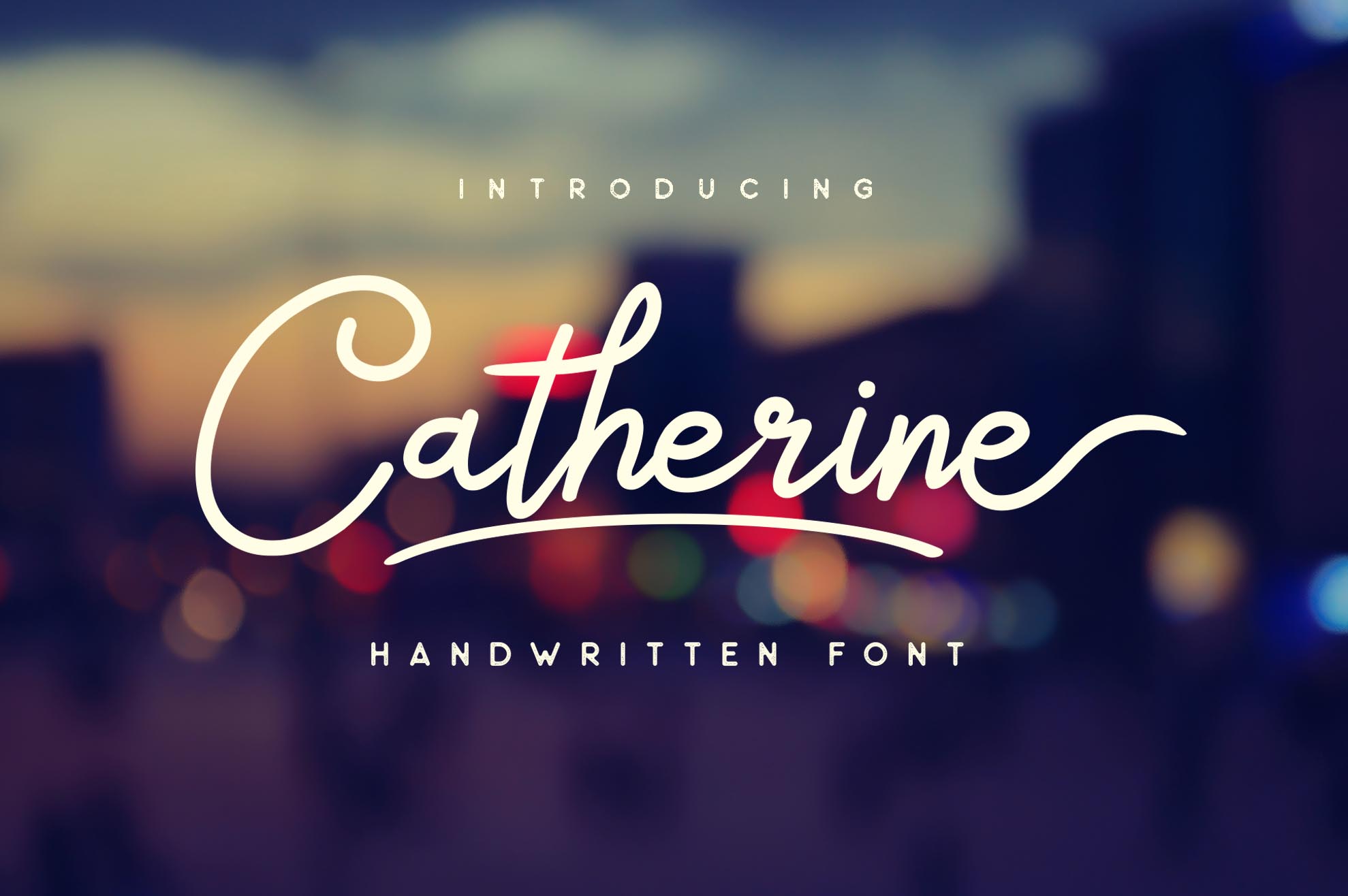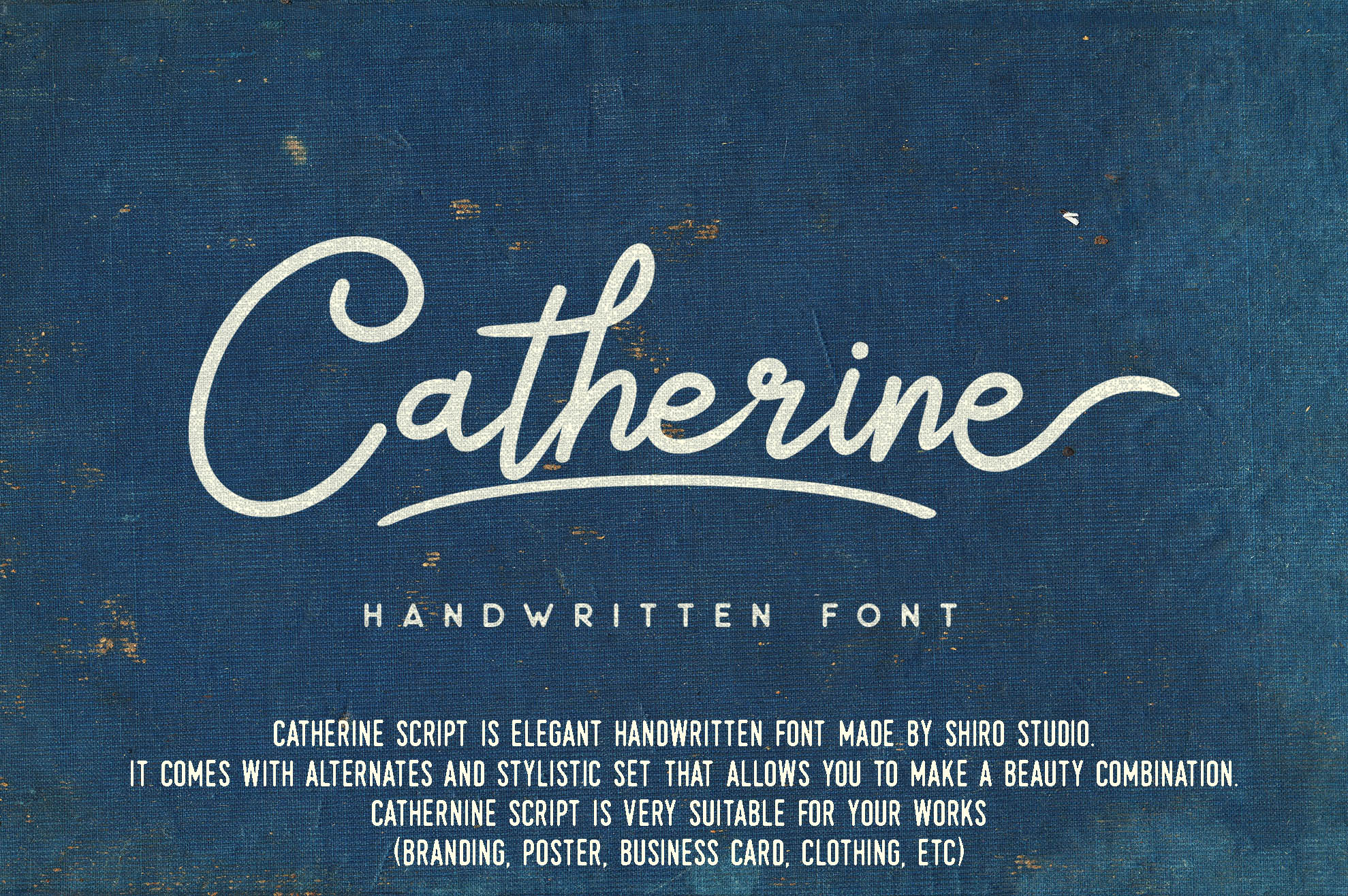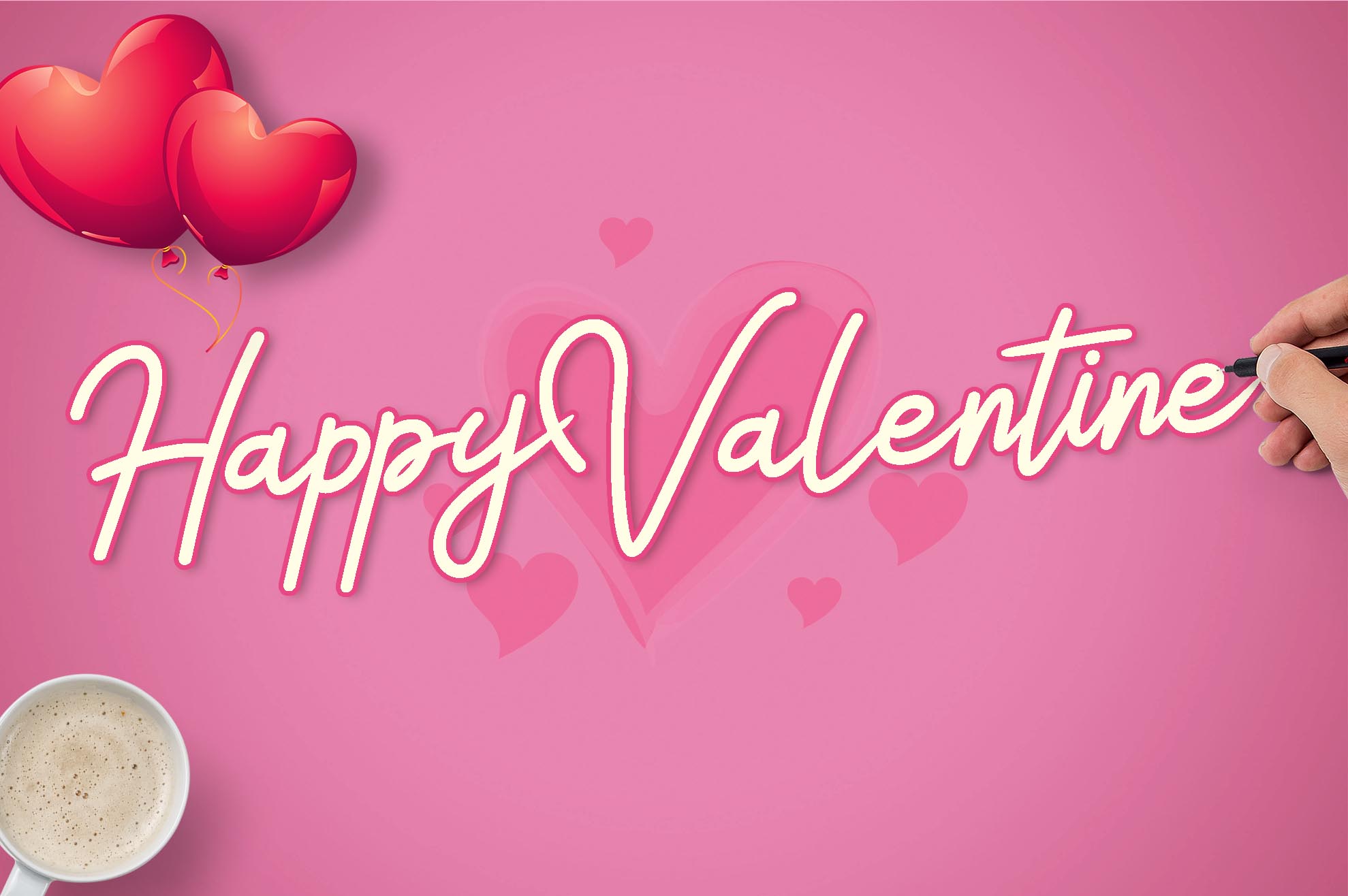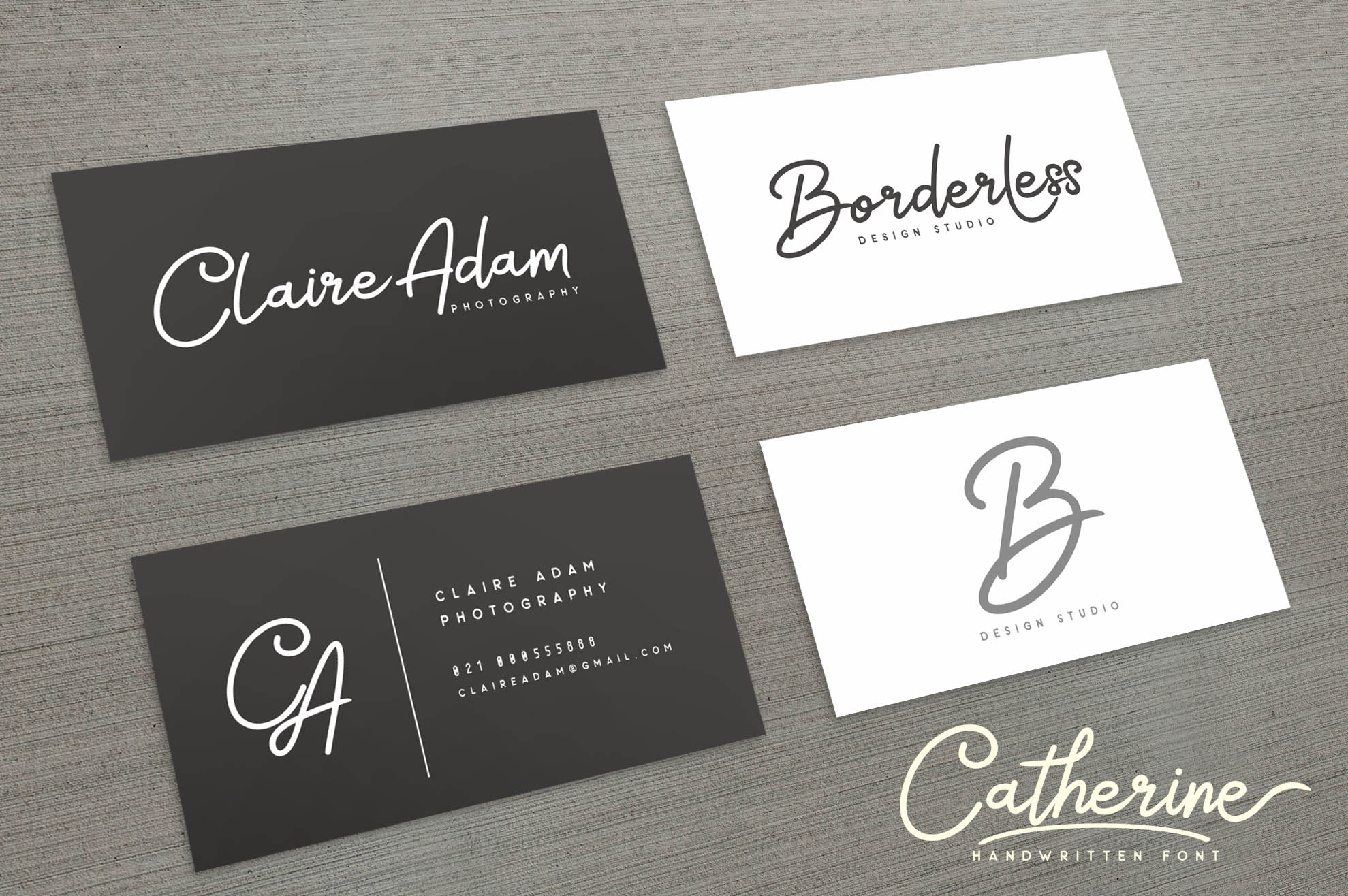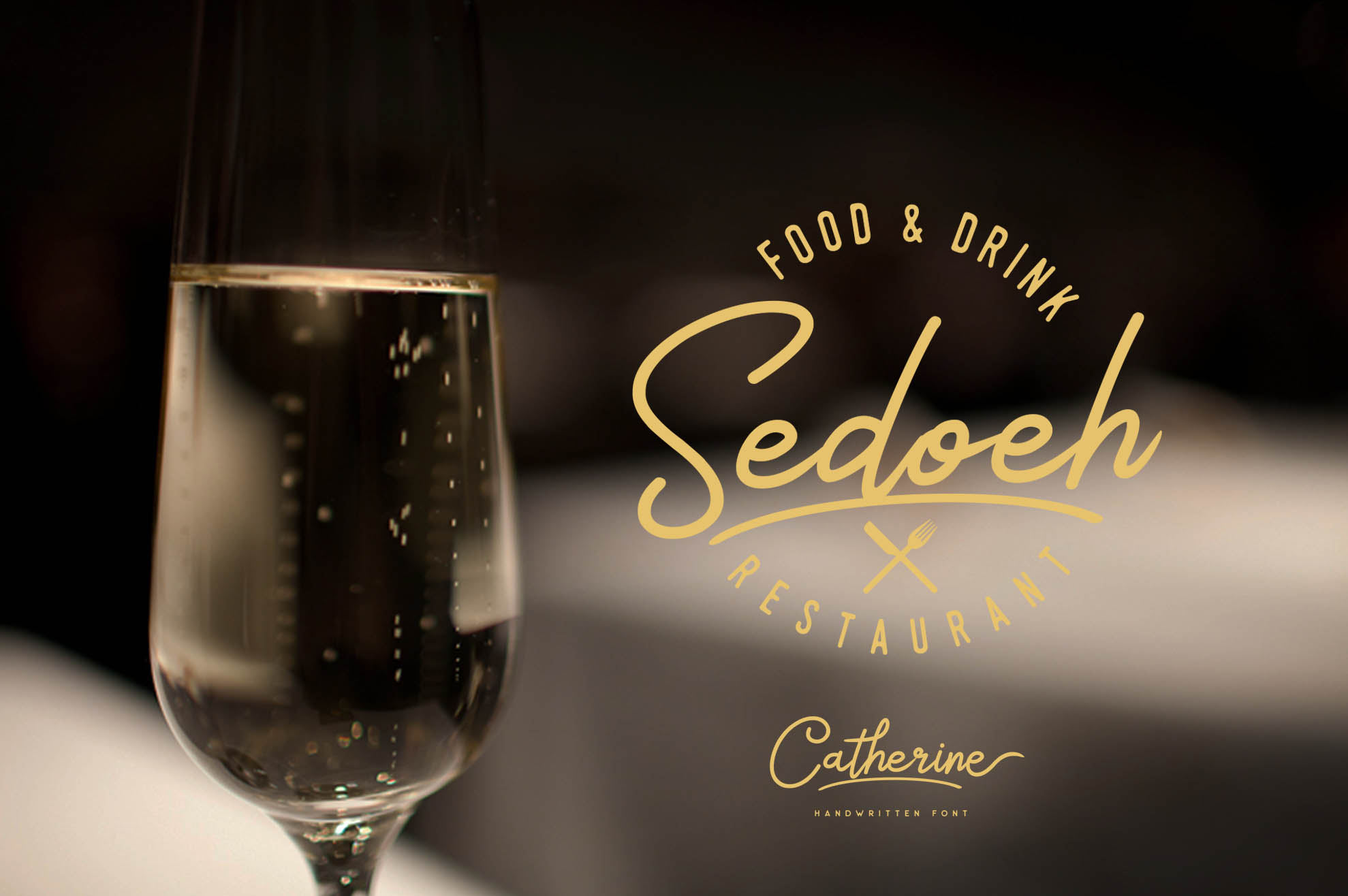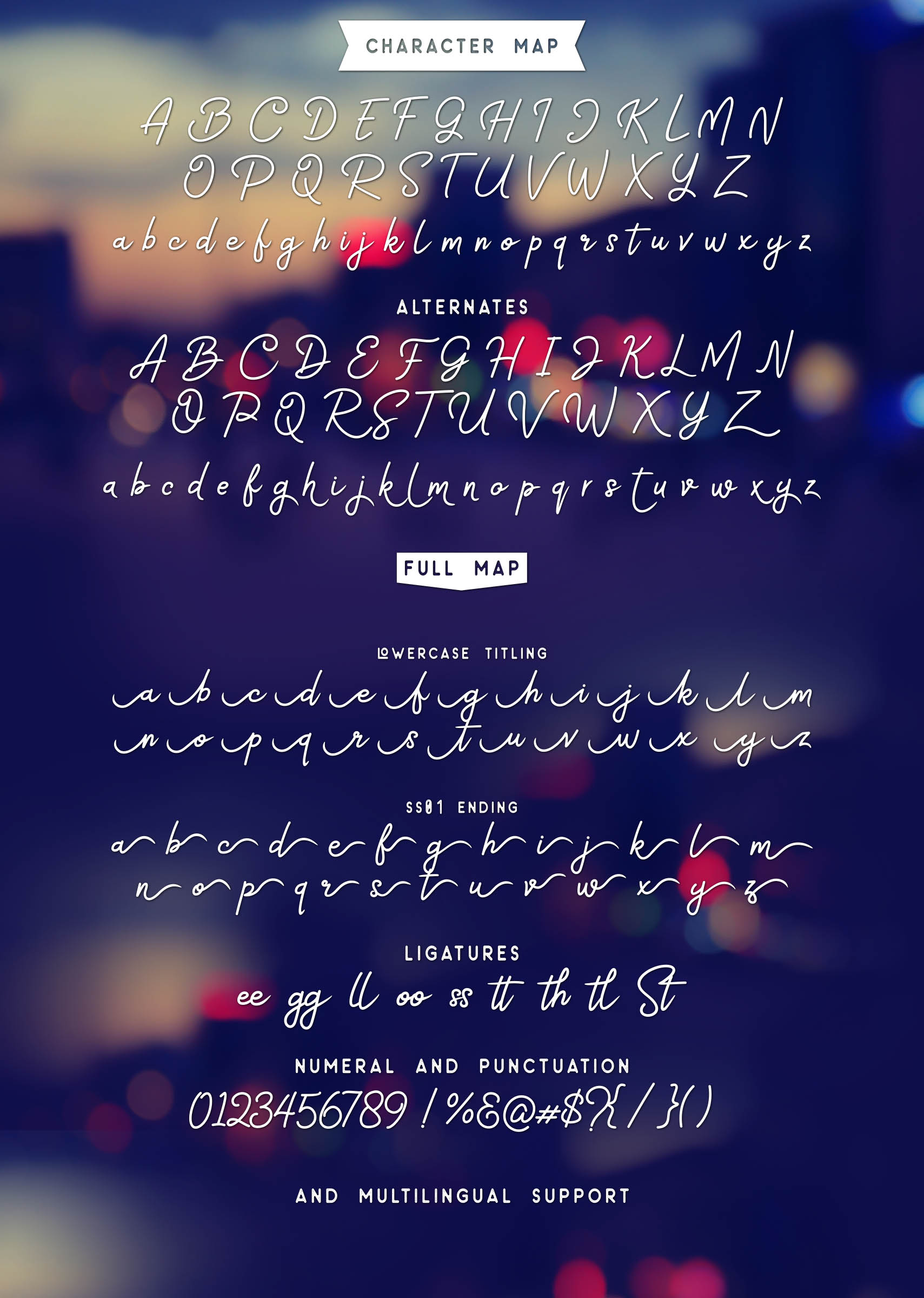
Catherine Script Font
The Catherine Script is a elegant handwritten font. Very cool for branding, poster, logo, and any other artworks. Using Catherine Script will be better if we play the lowercase and uppercase alternate and combining it with swashes in vector packs.
| Designer Name: | Shirongampus |
| Classification: | Handwritten Fonts, Script Fonts |